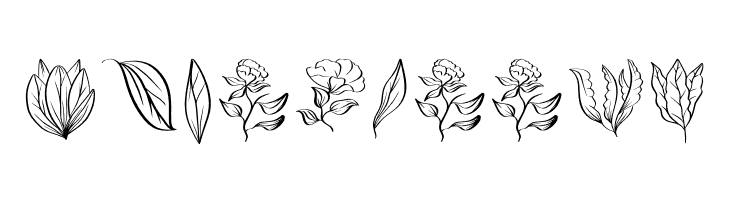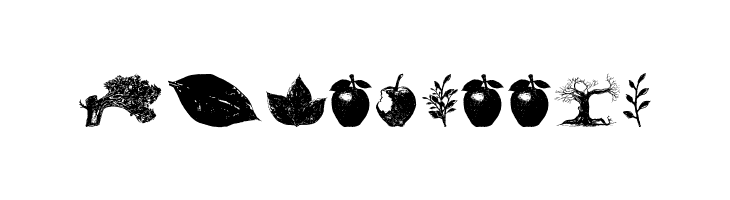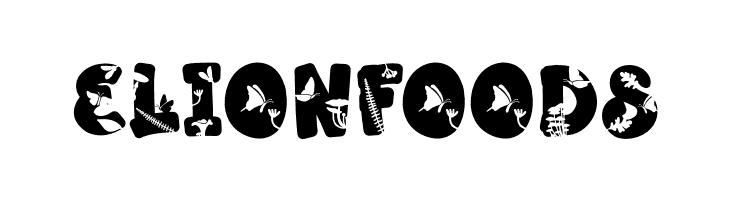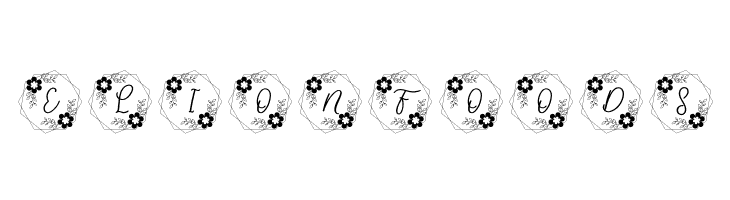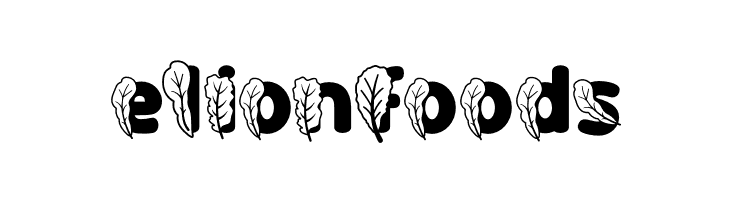
( Fonts by Edy Wiyono )
Hand-drawn floral and botanical decorative elements.
( Fonts by FHFont )
A decorative font with intricate illustrations of apples, trees, and figures.
A festive collection of winter-themed symbols and icons in a playful, decorative style.
( Fonts by Fouad Bouziani )
A bold, decorative font with characters formed by cannabis leaf motifs.
( Fonts by Yumna Family )
A playful, garden-themed decorative font with bold, rounded letters filled with intricate patterns.
( Fonts by Wasabib Studio )
A playful, flower-inspired decorative font with bold, organic shapes.
( Fonts by share font )
A decorative serif font encased in tropical wreaths, ideal for elegant and nature-themed designs.
( Fonts by Mr.Soon Design )
An elegant script font with floral wreath decorations, perfect for romantic designs.
( Fonts by Ivan Gladkikh )
An elegant serif font with intricate floral embellishments.
( Fonts by PutraCetol Studio )
A decorative font with leaf-inspired characters, perfect for nature-themed designs.